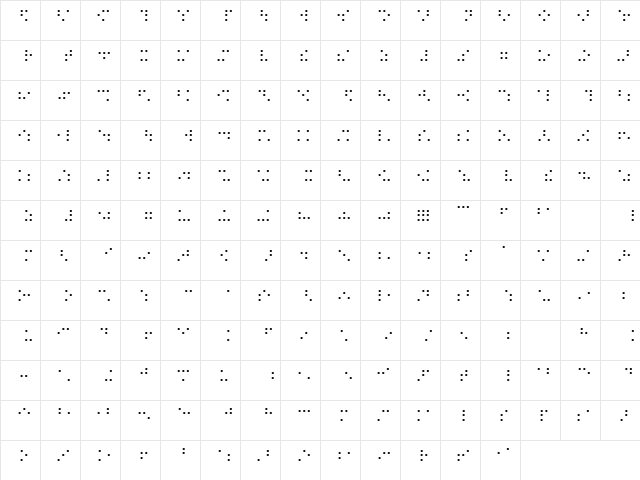
Weird Regular
Design Context for Weird Typeface
Weird is a composed and adaptable typeface that performs quietly and consistently across a wide range of design contexts.